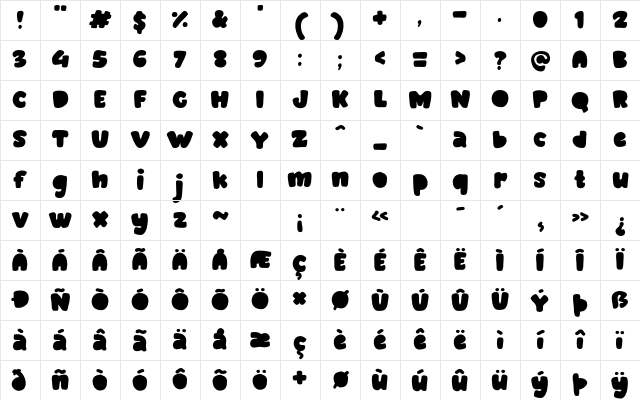
Mickly Frog Regular
Design Context for Mickly Frog
Mickly Frog is a composed and adaptable typeface that performs quietly and consistently across a wide range of design contexts.
Pro Tip: Use Mickly Frog in both headline and body roles to test its range before committing to a single application.